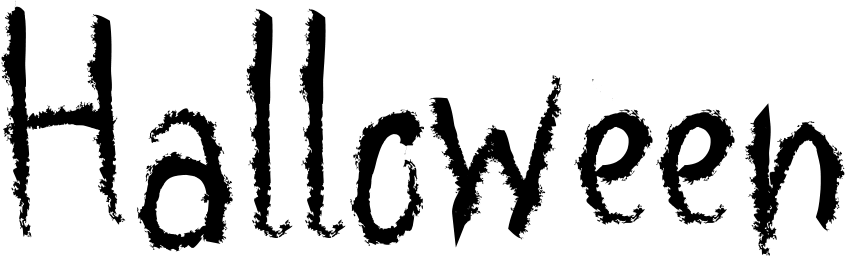
Halloween Font
If you want others to feel spooky from your content and have a Halloweeny type of mood, then you need a Halloween font. Considering the foregoing, we suggest Halloween, which would perfectly work in so many different areas, like Halloween and costume parties flyers, posters, cartoons, comic books, etc.
This font comes with a great collection of characters containing only both the uppercase and lowercase of the alphabet except for any numbers or punctuation marks.